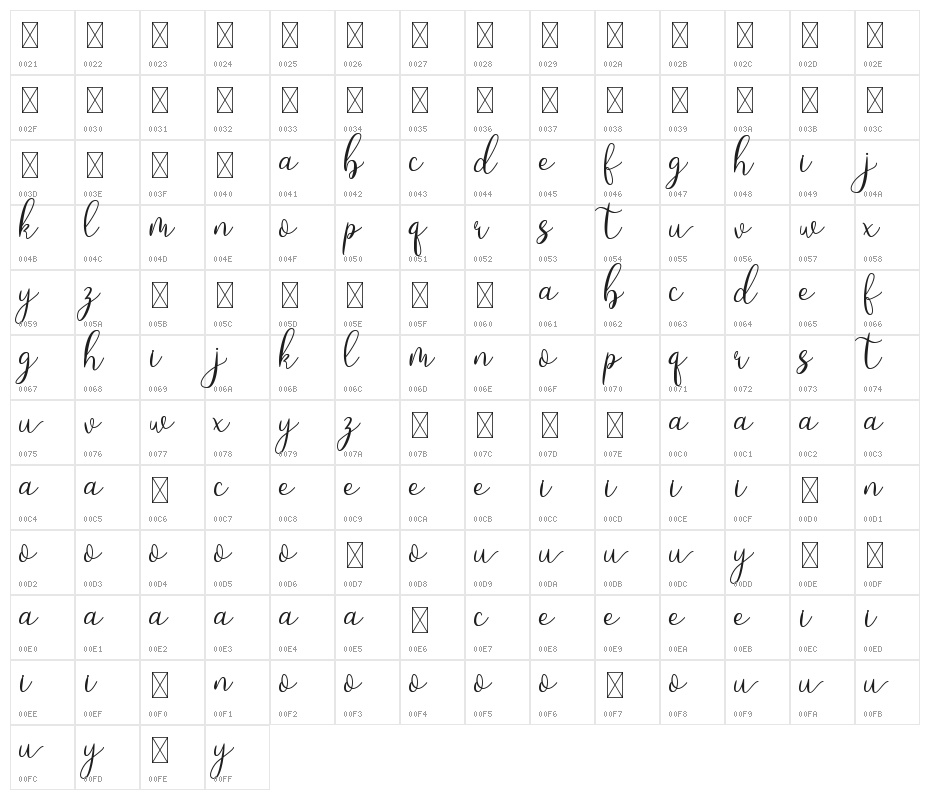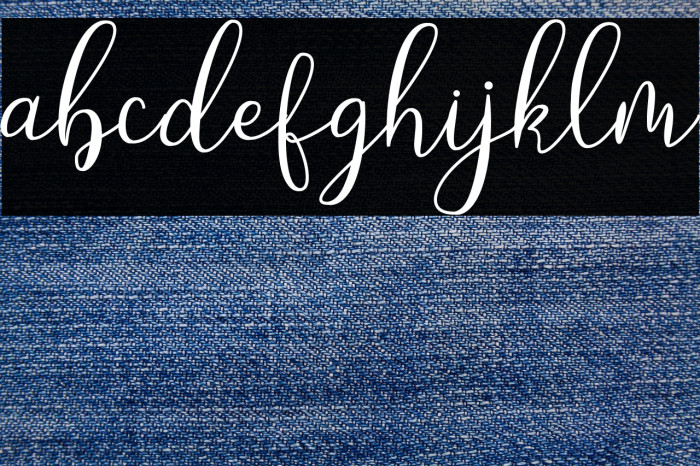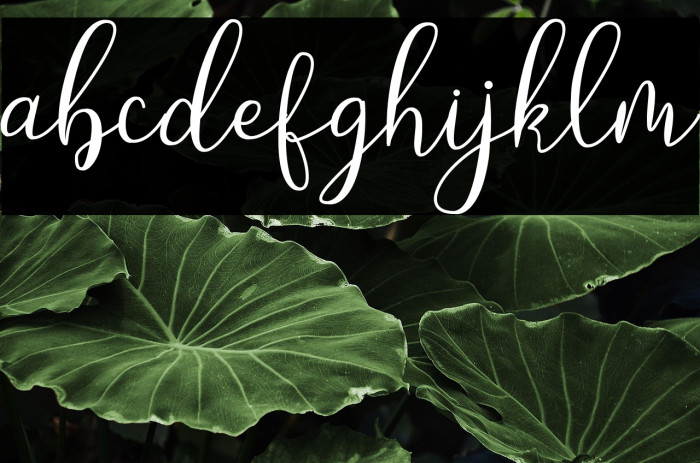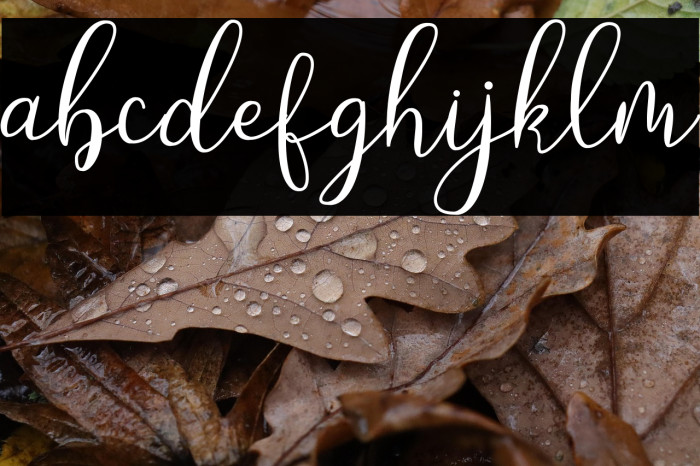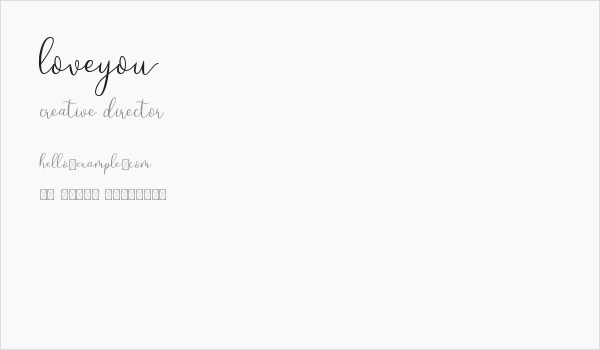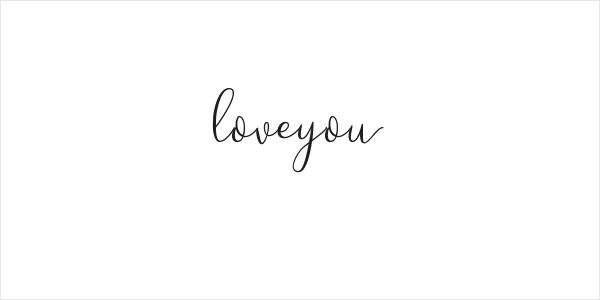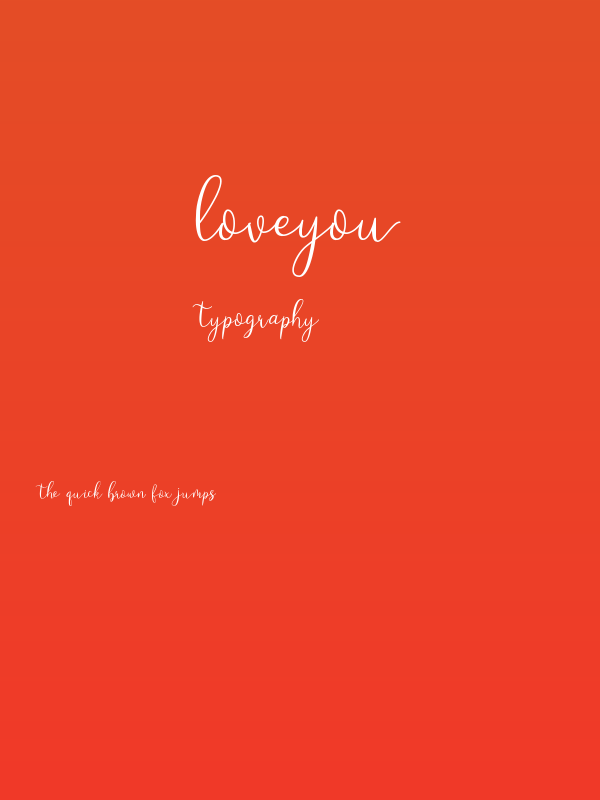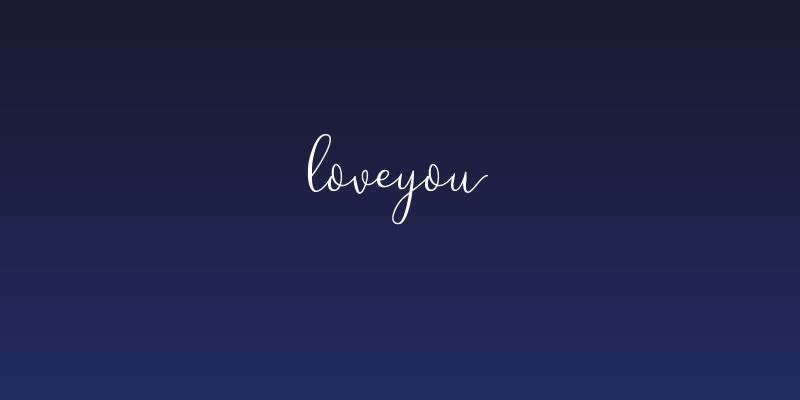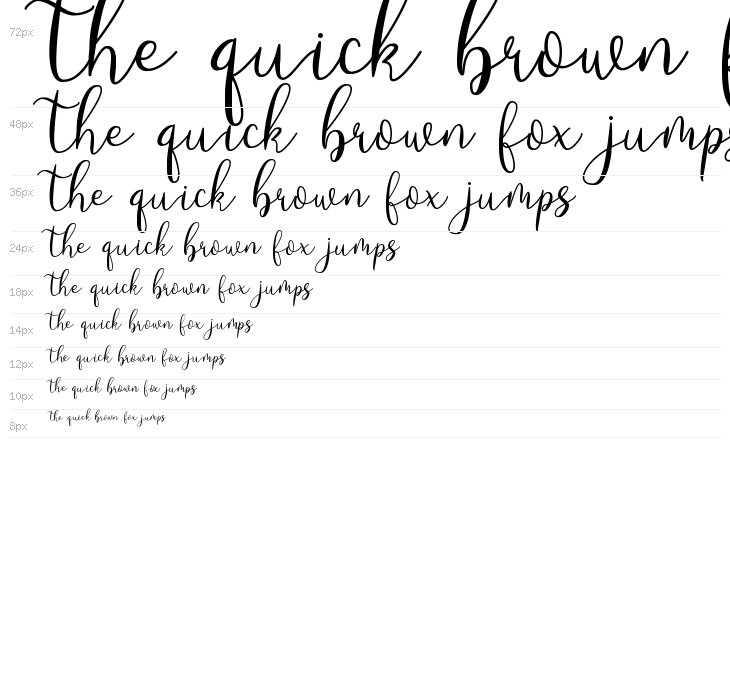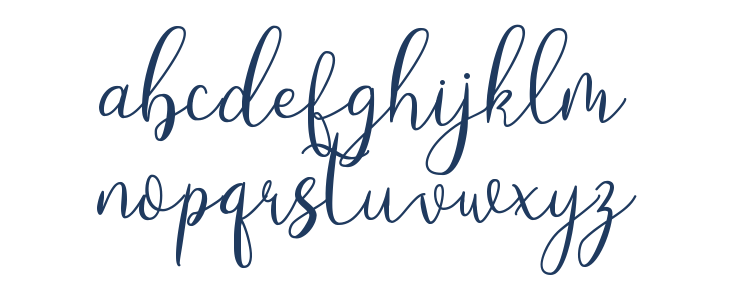
Loveyou Font
Loveyou Description
This font exudes a charming and elegant handwritten style, characterized by its flowing, cursive letters. The strokes are smooth and connected, giving it a natural and personal touch. The lowercase letters are particularly fluid, with loops and curves that enhance its graceful appearance. The font maintains a consistent stroke width, contributing to a harmonious and balanced look. Its playful yet sophisticated style makes it suitable for a variety of creative projects. The absence of uppercase letters and special characters suggests a focus on informal, personal communication.
| Overall Style | Elegant, Personal |
| Use Case | Invitations, Personal communication, Branding |
| Proposed Projects | Ideal for wedding invitations, greeting cards, personal letters, and branding that requires a personal touch. |